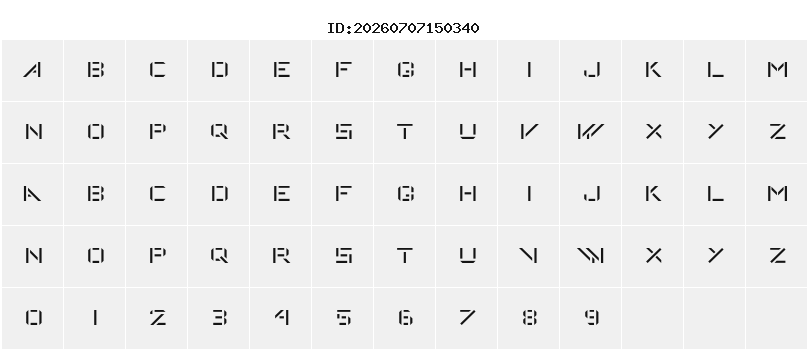
DeStijl Preview
• Font Name: DeStijl
• Font Style: Stencil
• Full Font Name: DeStijl Stencil
• PostScript Name: DeStijlStencil
About DeStijl.ttf
DeStijl.ttf is a modern, elegant sans-serif font designed for ultimate readability and visual harmony. Perfect for branding, headlines, web design, and print materials.